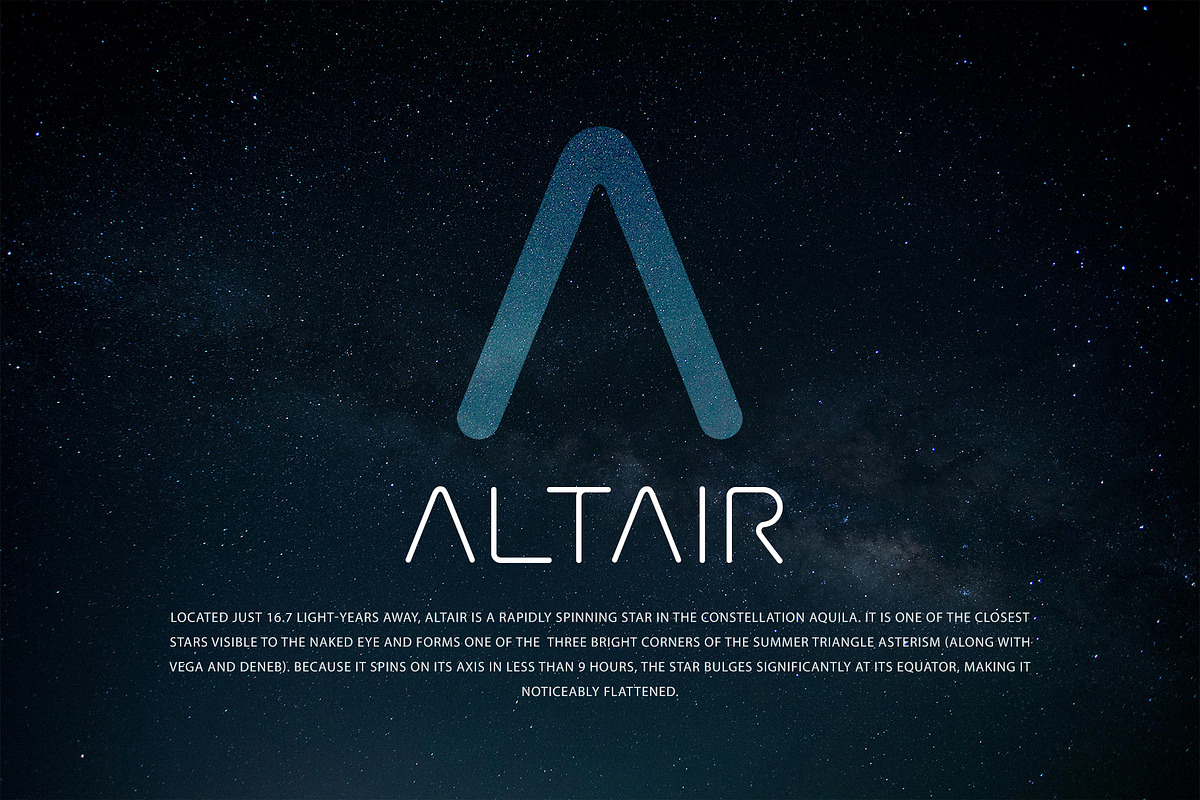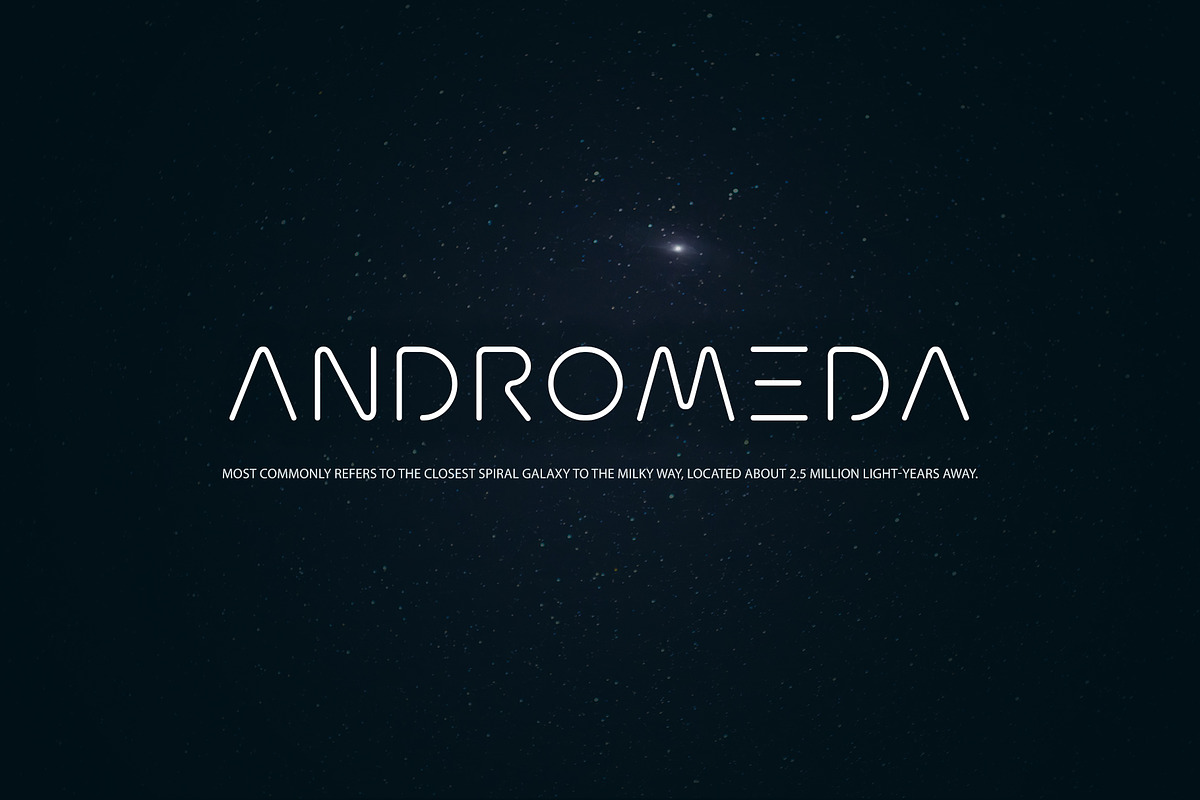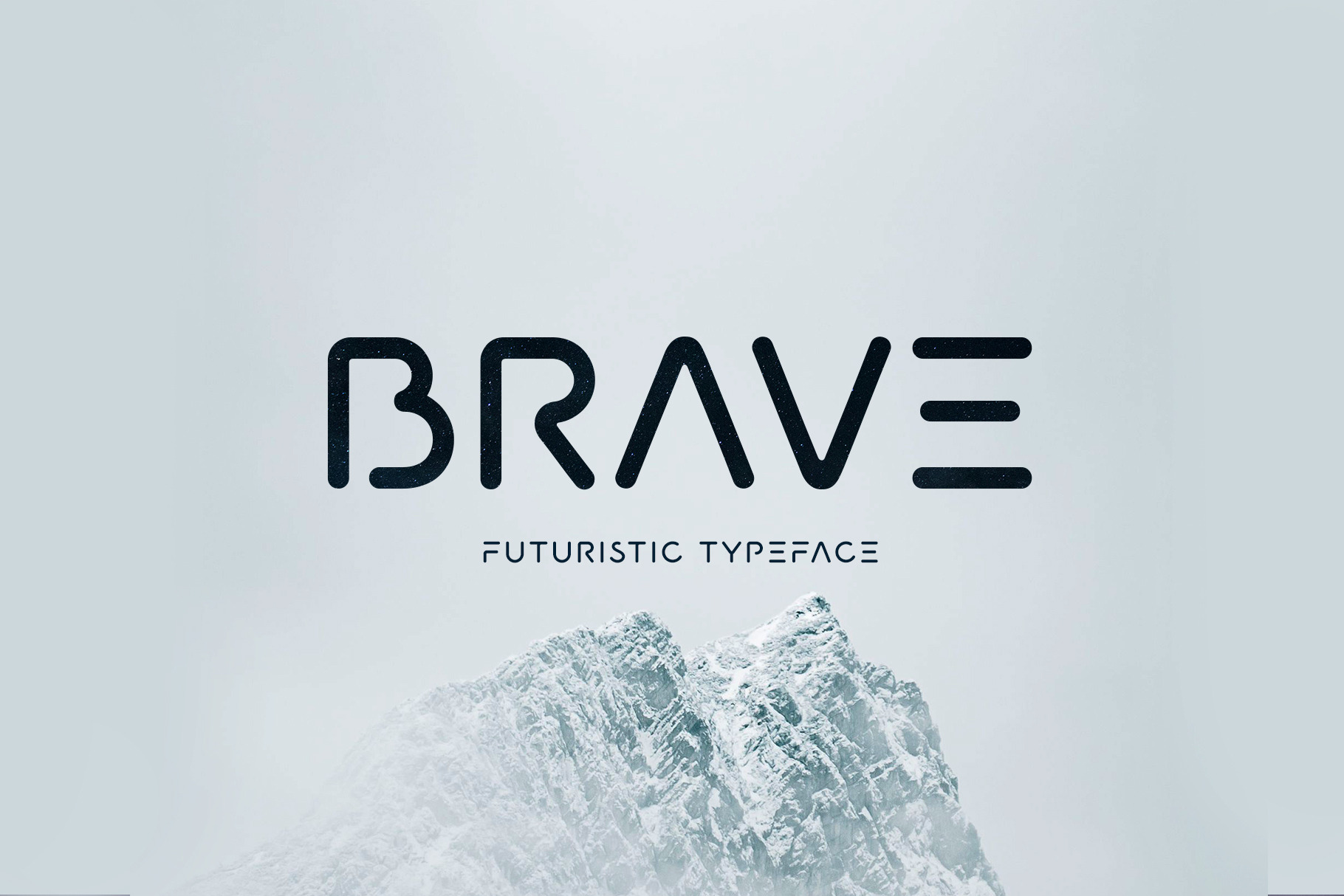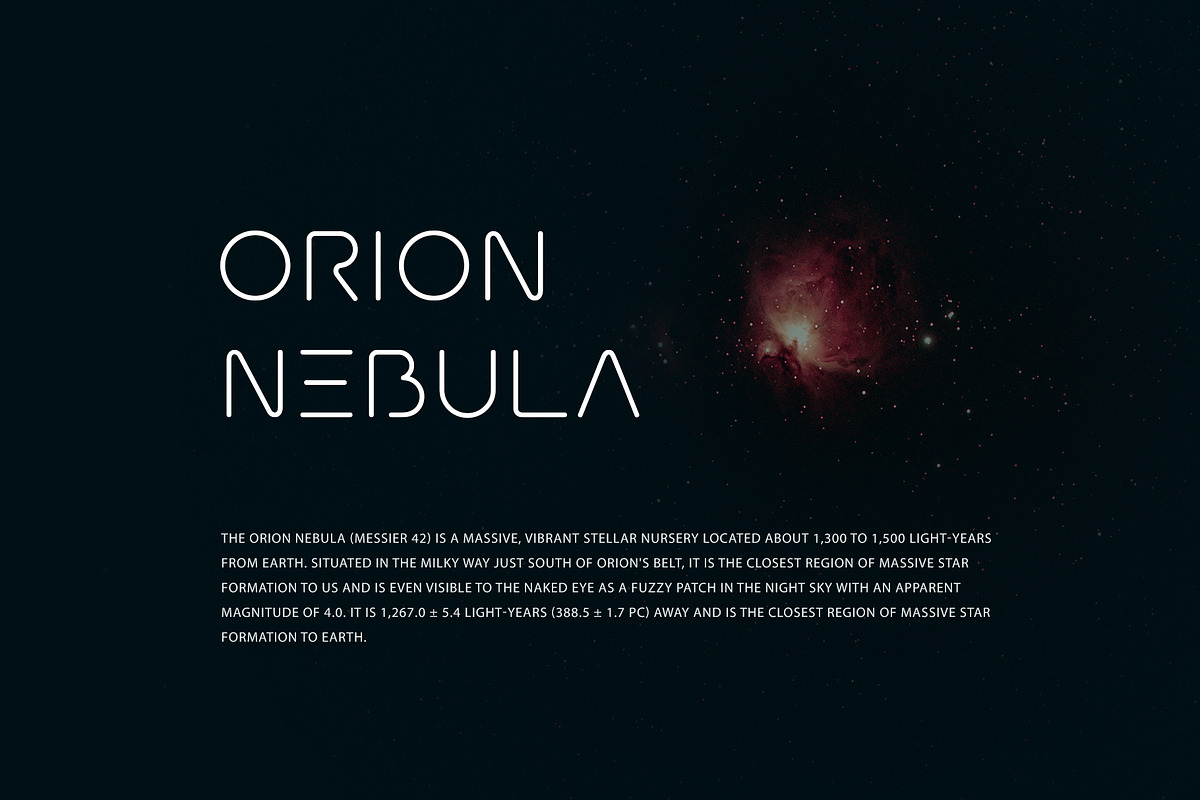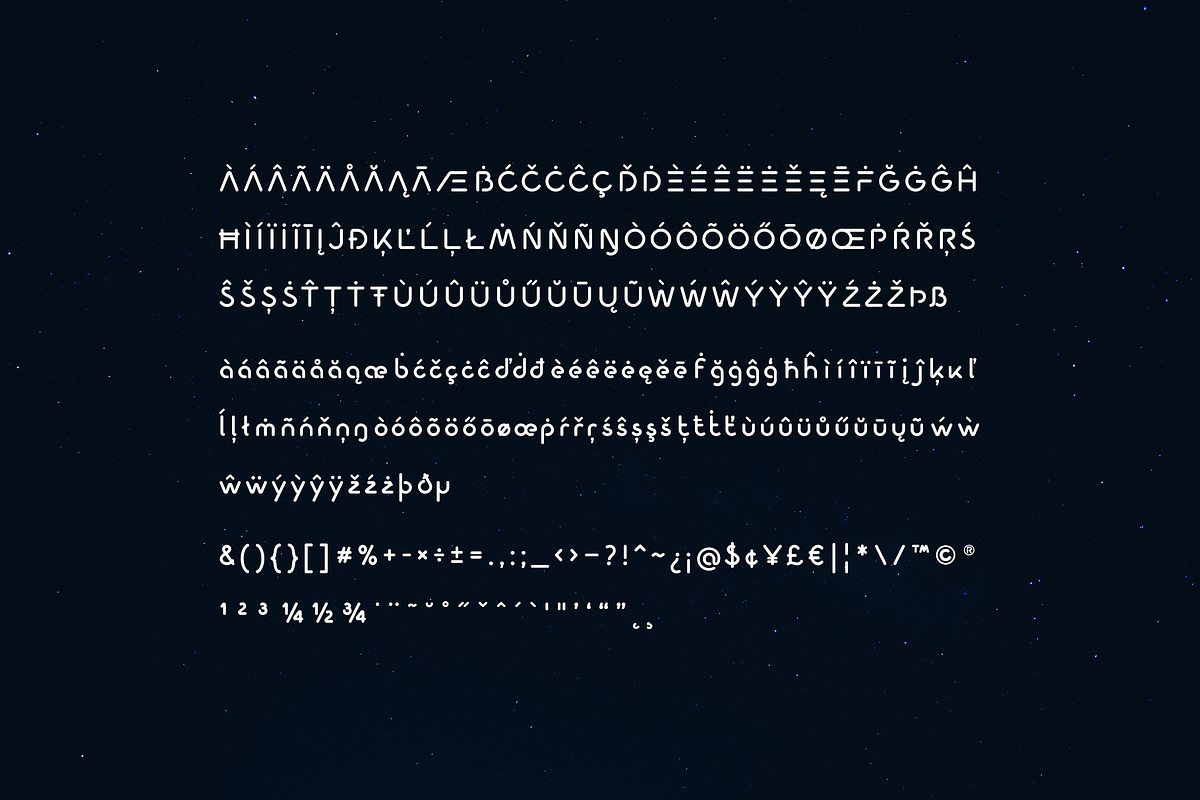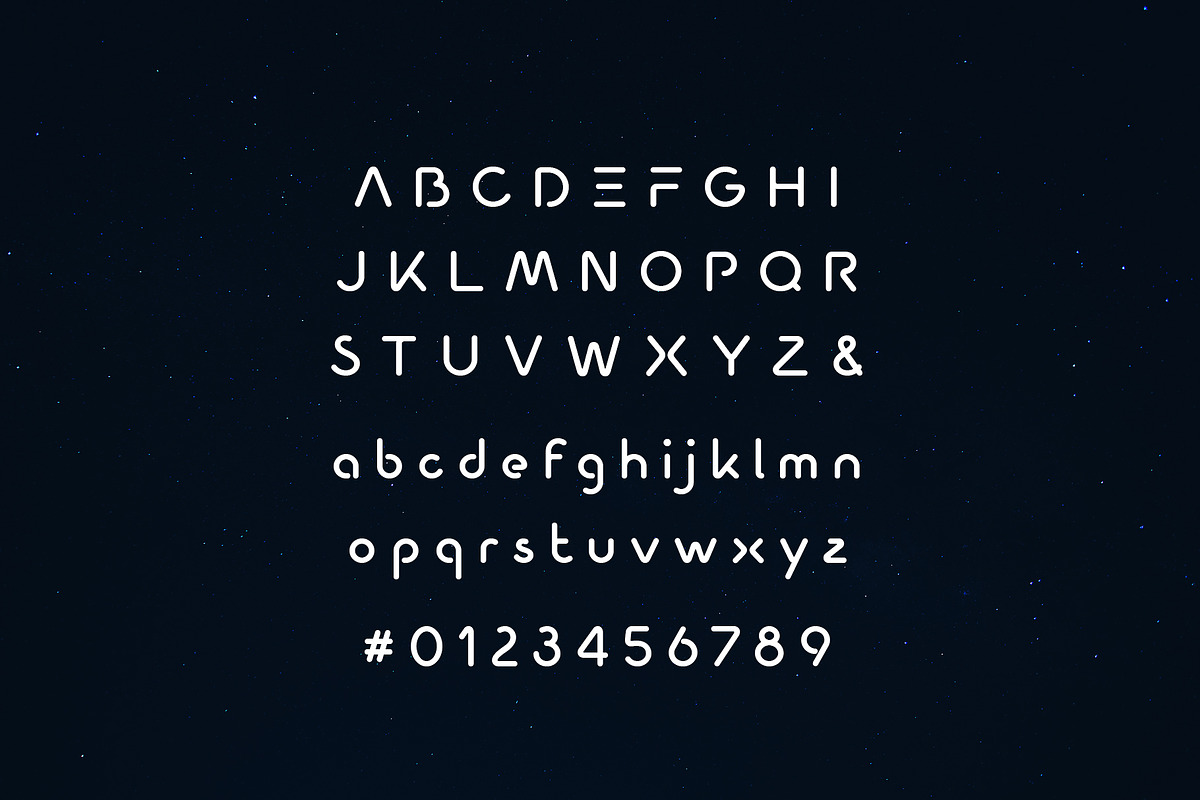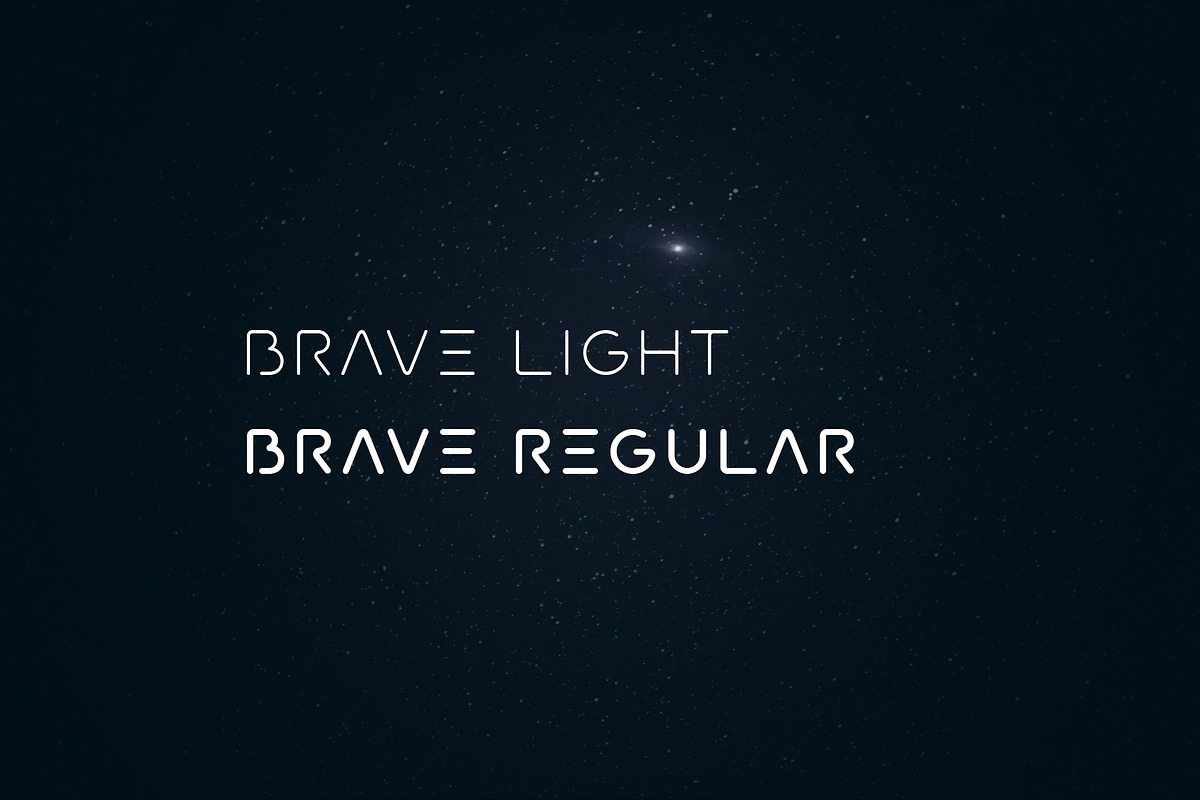
Brave Futuristic Font
Brave. A minimal futuristic font.
Designed with minimal lines to keep it simple and artistic. It gives your text a modern smart effect.
Features: Uppercase, Lowercase, Punctuation, Numeral, Multilingual Character
317+ glyphs, necessary kerning pairs and multilingual characters are included to fulfill the demands of your text.
Light and Regular version are added to make variation on your typography.